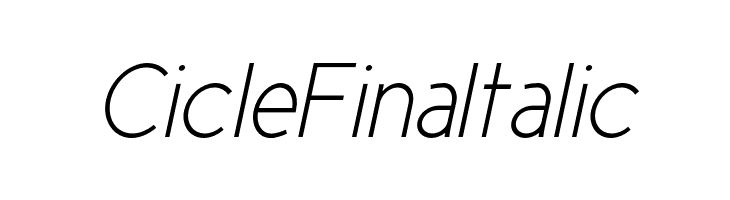
A sleek, modern italic font with clean lines and subtle curves.
A sleek, modern italic font with clean lines and a dynamic appearance.
A modern, italic sans-serif font with a sleek and dynamic design.